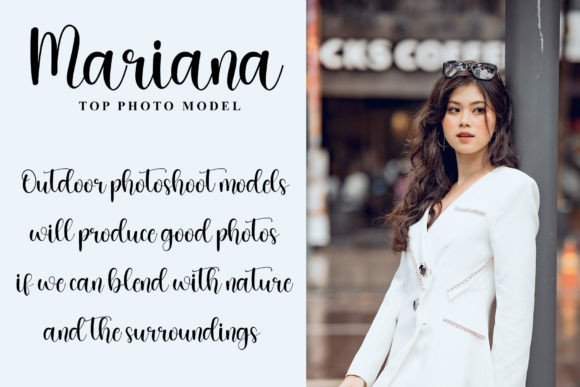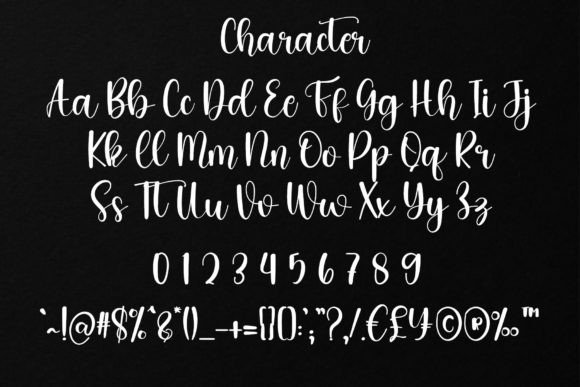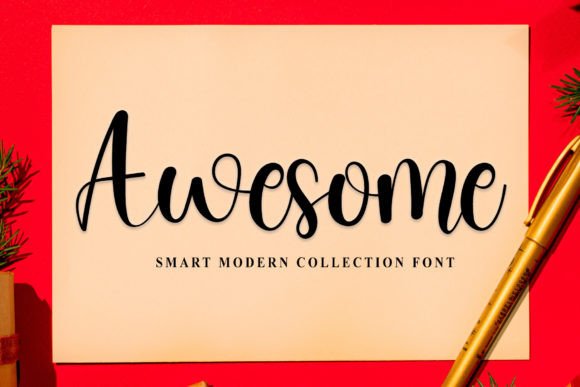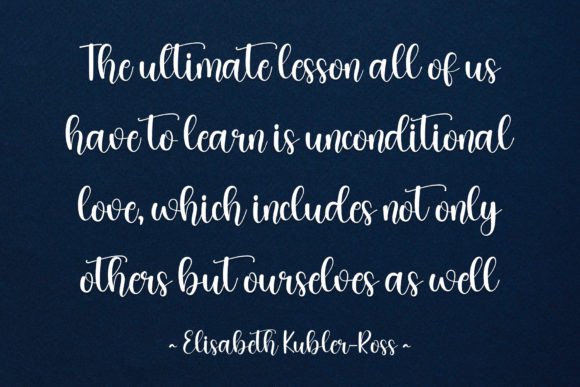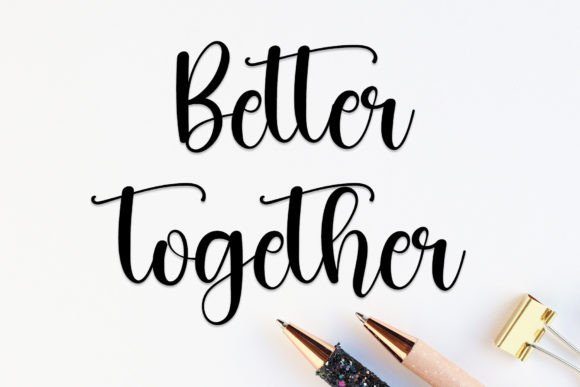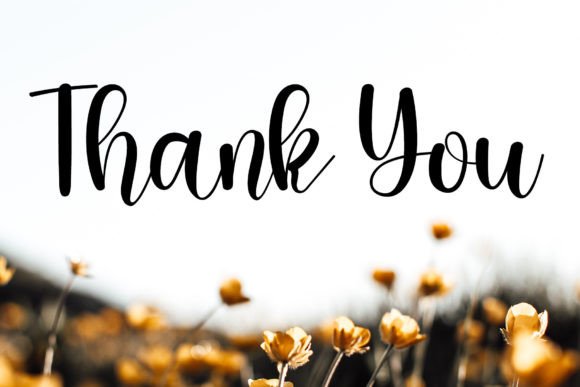
Finger Line Font: Elevate Your Designs with Elegance and Style
In the world of typography, fonts play a crucial role in conveying the tone and personality of a design. For designers and crafters seeking a unique and stylish handwritten font, Finger Line Font is an excellent choice. Crafted with a touch of elegance, this neat and stylish font is perfect for a wide range of projects, from wedding invitations to logos and nameplates.
The Distinctive Charm of Finger Line Font
Finger Line Font boasts a distinct and timeless style that sets it apart from other fonts. Its elegant and refined appearance makes it an ideal choice for designers who want to add a touch of sophistication to their work. Whether you’re creating a wedding invitation card, a birthday card, or a logo, Finger Line Font is sure to impress.
One of the standout features of Finger Line Font is its versatility. This font can be used for a wide variety of designs, including:
- Templates: Create stunning templates for social media, blogs, or websites using Finger Line Font.
- Wedding Invitation Cards: Add a touch of elegance to your wedding invitations with this beautiful font.
- Crafts: Use Finger Line Font to create unique and personalized crafts, such as handmade cards or gift tags.
- Birthday Cards: Make your birthday cards stand out with the stylish and elegant Finger Line Font.
- Logos: Create professional and eye-catching logos for your business or brand using this font.
- Nameplates: Design beautiful nameplates for events, conferences, or exhibitions with Finger Line Font.
Why Choose Finger Line Font?
So, what makes Finger Line Font a top choice for designers and crafters? Here are a few reasons:
- Elegant and Refined: Finger Line Font exudes elegance and sophistication, making it perfect for designs that require a touch of class.
- Unique and Timeless: This font has a distinct style that won’t go out of fashion anytime soon, ensuring your designs remain relevant for years to come.
- Easy to Read: Finger Line Font is clear and easy to read, making it suitable for both digital and print designs.
- Highly Versatile: As mentioned earlier, Finger Line Font can be used for a wide range of designs, making it a valuable addition to your font collection.
Tips for Using Finger Line Font
To get the most out of Finger Line Font, here are a few tips:
- Pair it with Other Fonts: Experiment with pairing Finger Line Font with other fonts to create a unique and visually appealing design.
- Adjust the Size and Color: Play around with different sizes and colors to find the perfect combination for your design.
- Use it for Headings and Titles: Finger Line Font is perfect for headings and titles, adding a touch of elegance and sophistication to your design.
Finger Line Font is a stylish and elegant handwritten font that’s perfect for designers and crafters looking to add a touch of sophistication to their work. With its distinct and timeless style, versatility, and ease of use, this font is sure to become a favorite in your collection. Whether you’re creating wedding invitations, logos, or crafts, Finger Line Font is an excellent choice. So, fall in love with its charm and use it to create stunning designs that will leave a lasting impression.